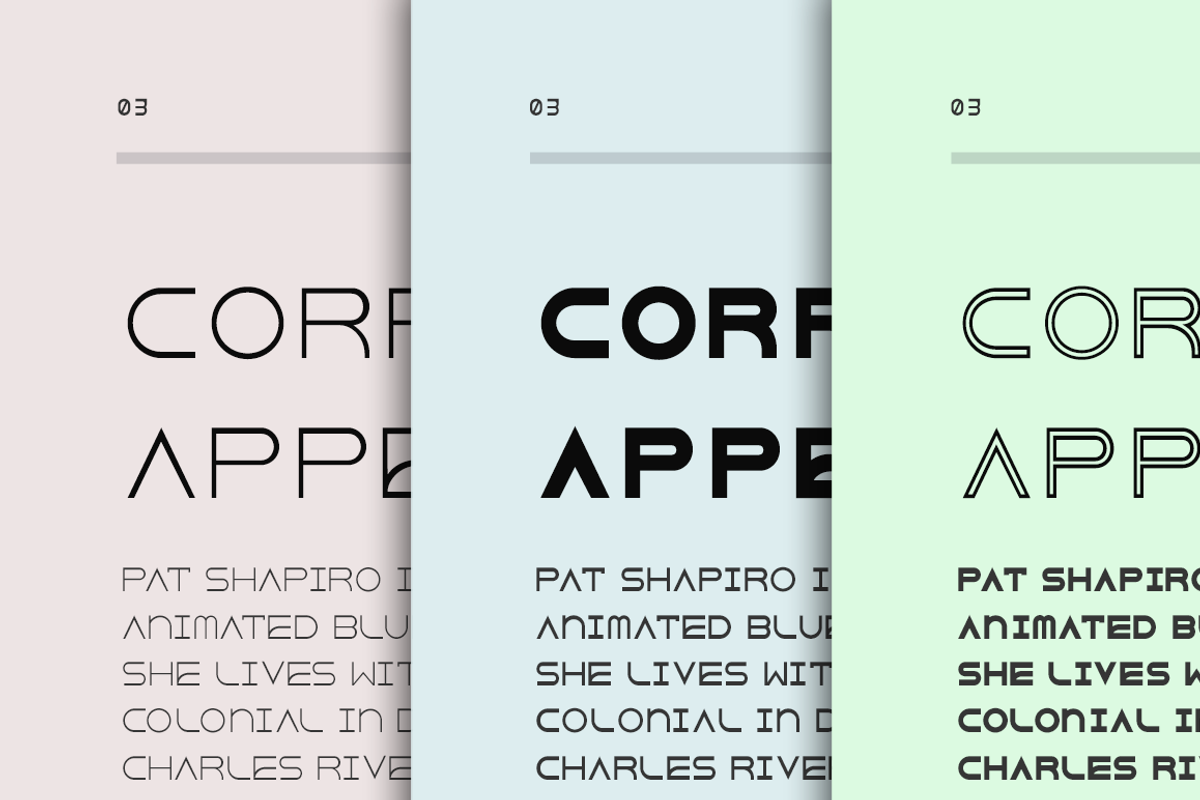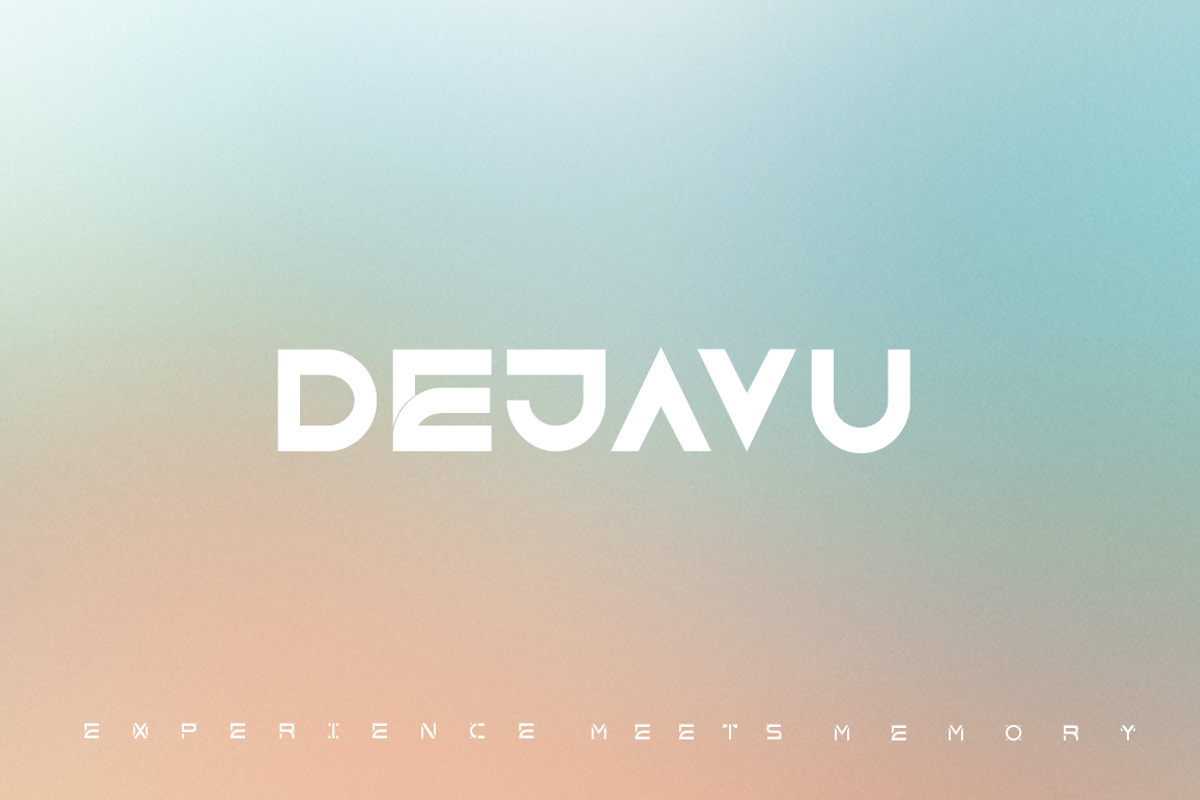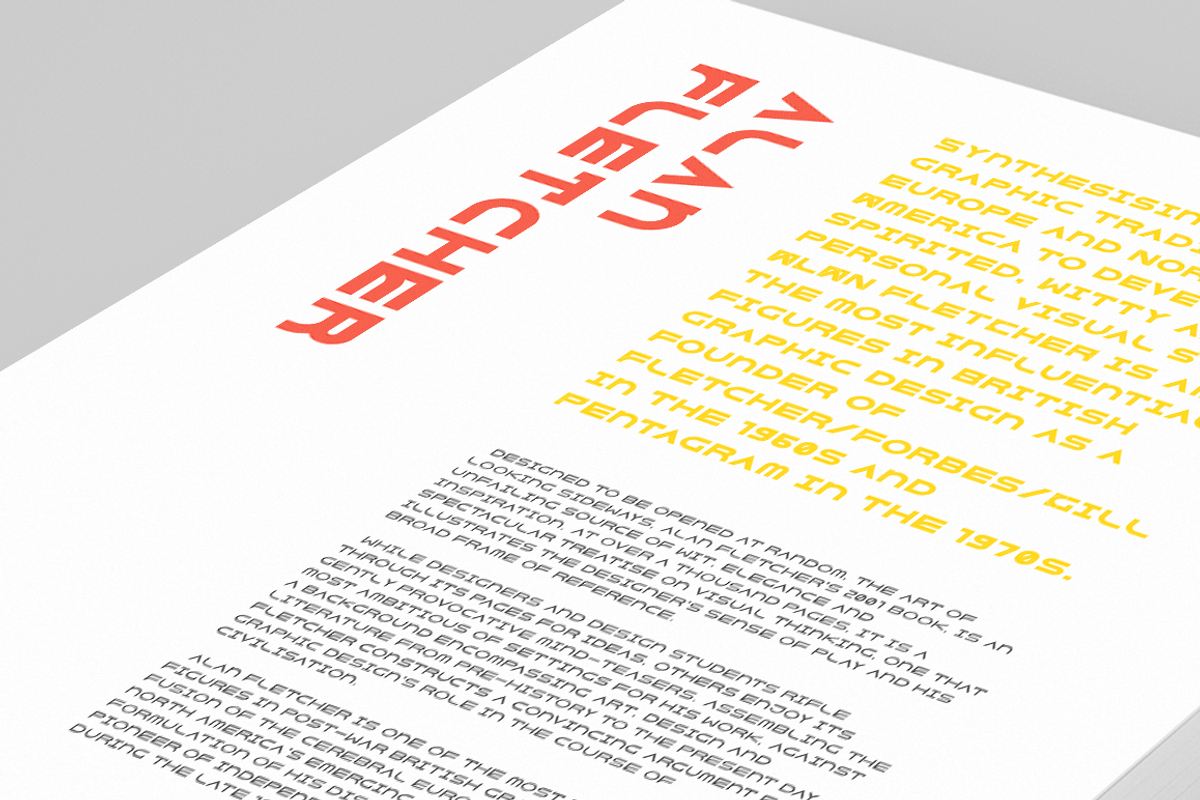
DejavuTF Font - 75%off by ethanissweet is a font selected for branding, posters, packaging, typography.
- It has also available in two formats uppercase & lowercase.
- Dejavu TF brings uppercase font with unique square stencil effect and lowercase has simplest graphic lettering for normal usage.
- DejavuTF Light
- DejavuTF Regular
- DejavuTF Bold
- DejavuTF Outline
DejavuTF Font - 75%off by ethanissweet fits naturally into Branding, posters, packaging, typography.